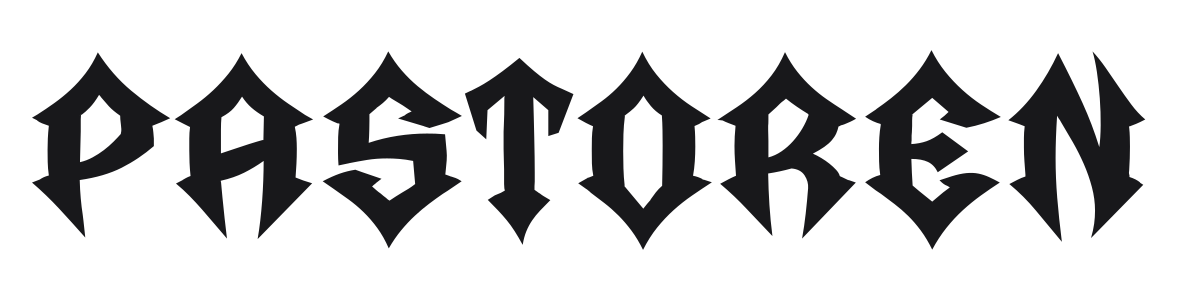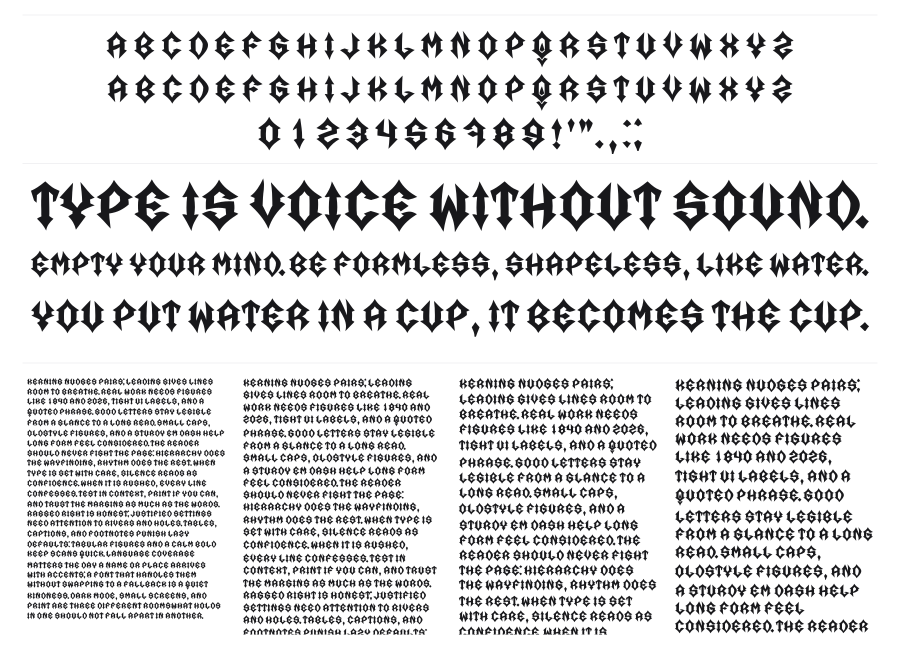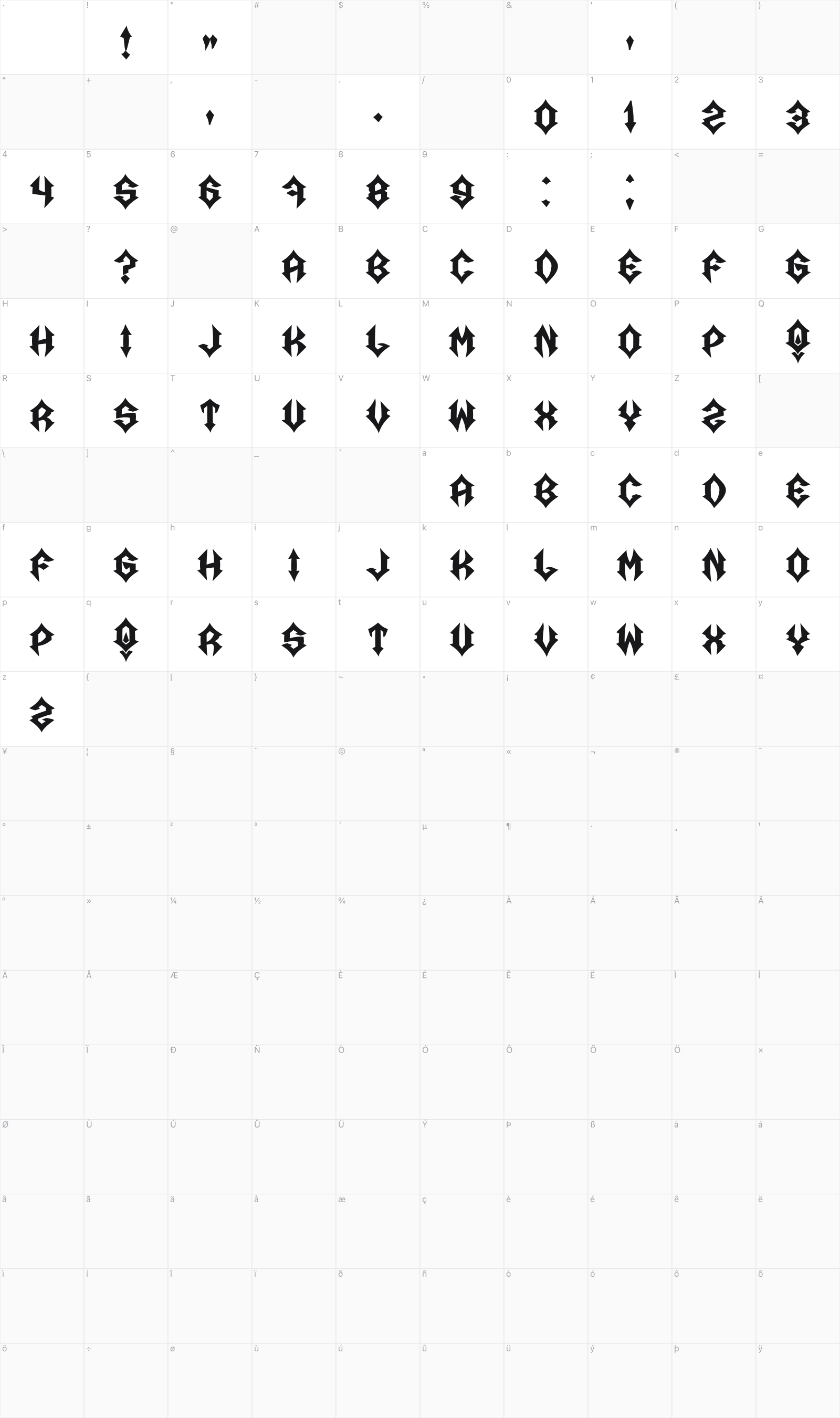
Pastoren
Pastoren is a heavy gothic blackletter with sharp angular cuts and bold, high-contrast strokes that lean hard into metal and dark-themed aesthetics. The condensed caps-driven design reads somewhere between medieval stonecutting and a thrash metal album cover. It works at large sizes where the pointed terminals and notched details can make their full impact.